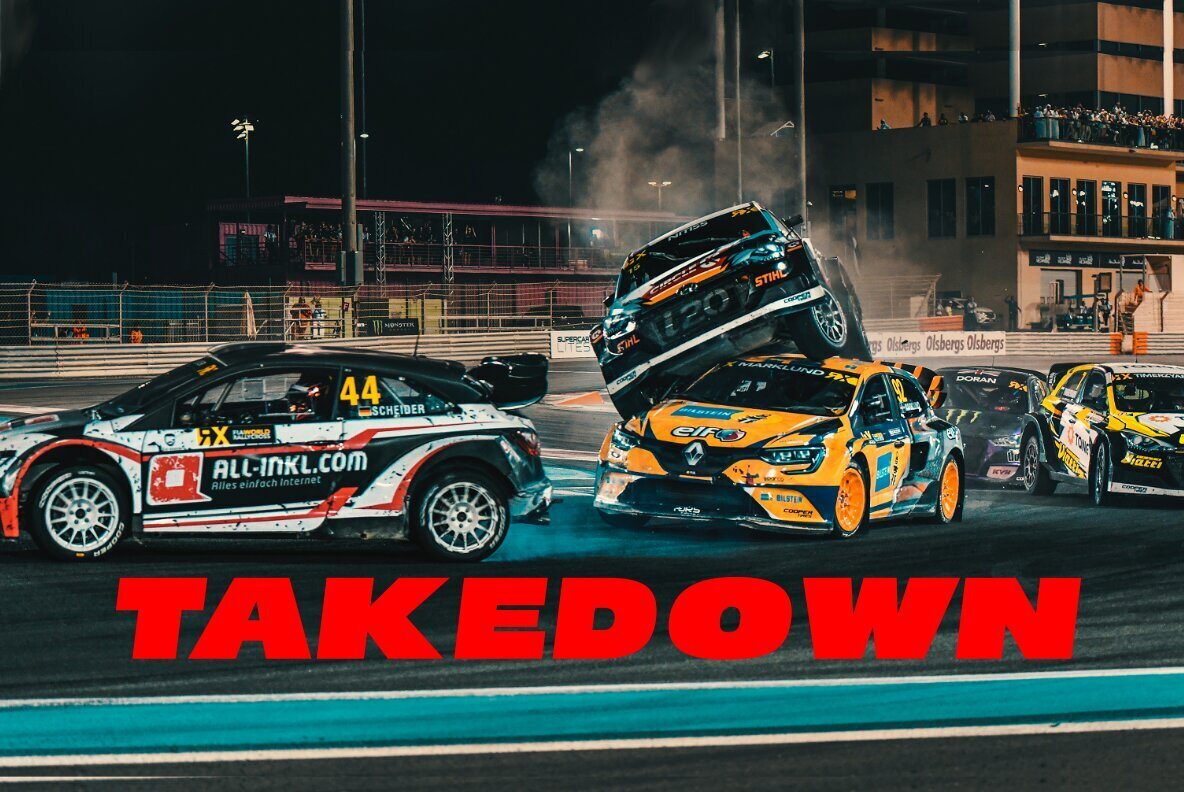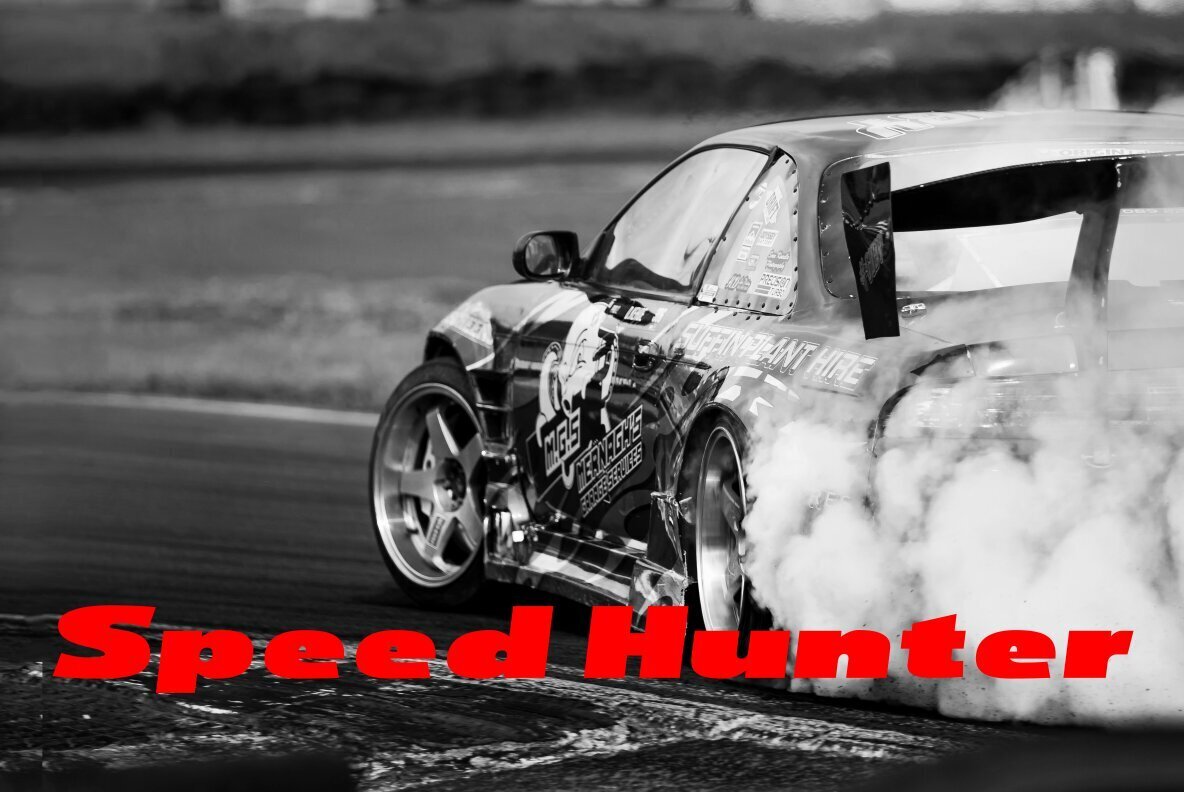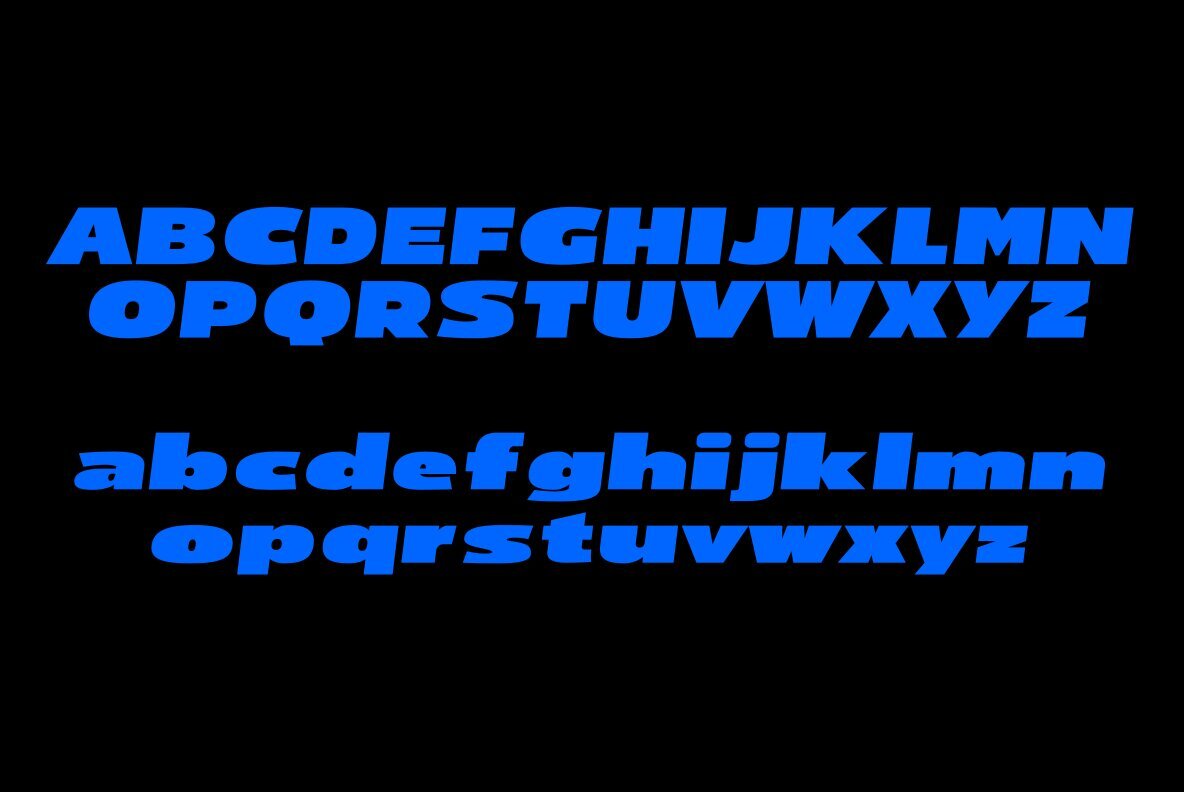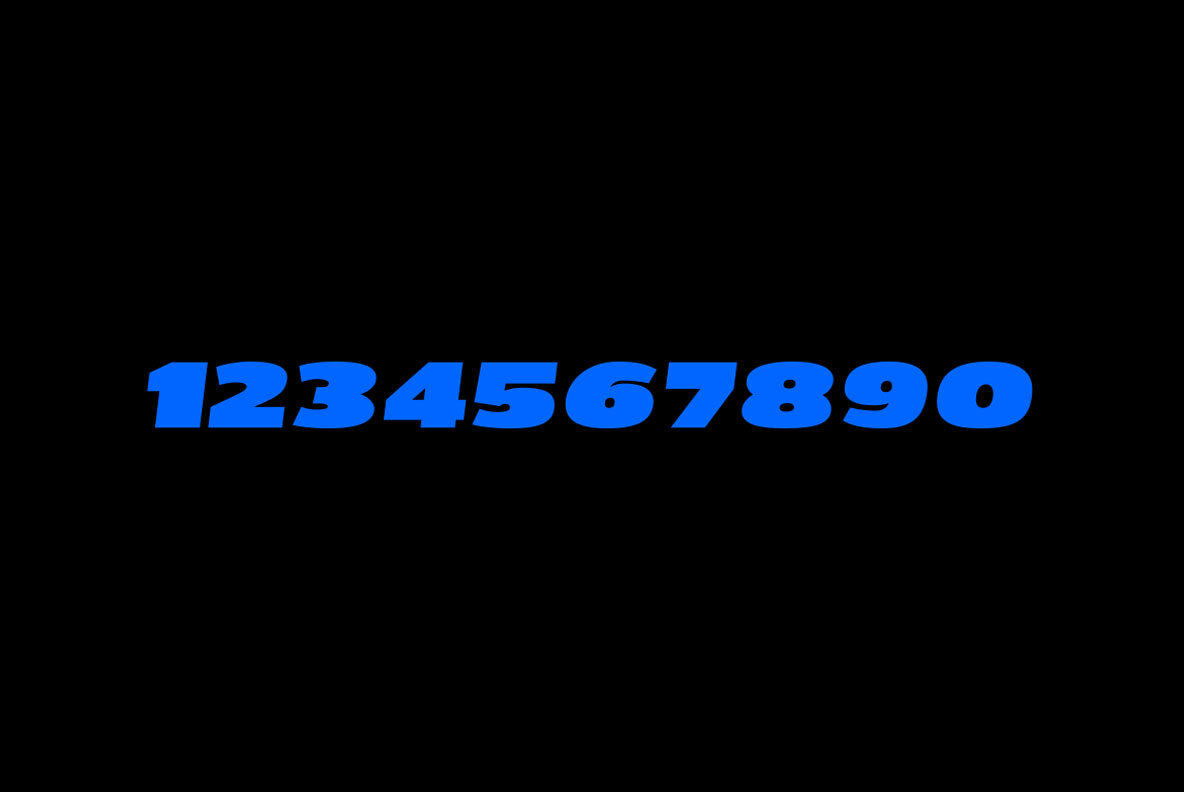
Drifter Font
Inspired by the speed of drifters. This font is made with a unique and cool value, this font has an aggressive impression and is suitable for use in graphic designs related to racing.
Making a font I always pay attention to the quality and value of the font to create the best font. For me, fonts not only function as visual communication, but also as a form of expression that expresses the feelings that the creator of the font wants to convey. and my principle is to always prioritize quality...